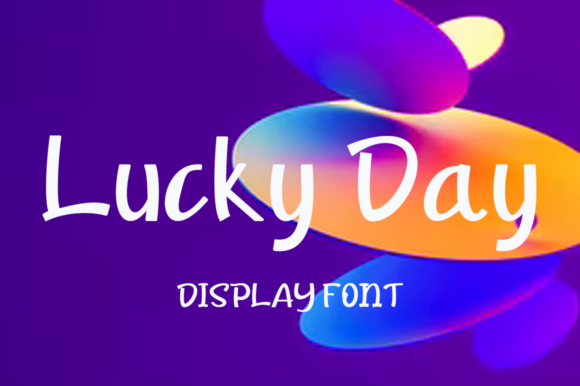
Prepare yourself to be captivated by the Lucky Day Font, a mesmerizing script font that exudes charm and elegance. This exquisite creation by Gatra Std. is a true gem, meticulously crafted to bring your designs to life like never before.
Step into a world of creativity and let the Lucky Day Font guide you. Its enchanting handwritten style is perfect for adding a personal touch to your chalkboard quotes, teaching materials, and any project that calls for an authentic and heartfelt feel. The Lucky Day Font is not just a font; it's an expression of your unique style.
With its flowing curves and playful strokes, the Lucky Day Font dances across the page, capturing attention and evoking emotions. Its simple yet captivating design makes it a versatile choice for a wide range of projects, from heartwarming invitations and personalized gifts to eye-catching logos and branding materials.
Unleash your creativity and let the Lucky Day Font be your artistic muse. Its charming personality will add a touch of delight to your designs, making them truly unforgettable. Embrace the Lucky Day Font and embark on a creative journey where your imagination knows no bounds.